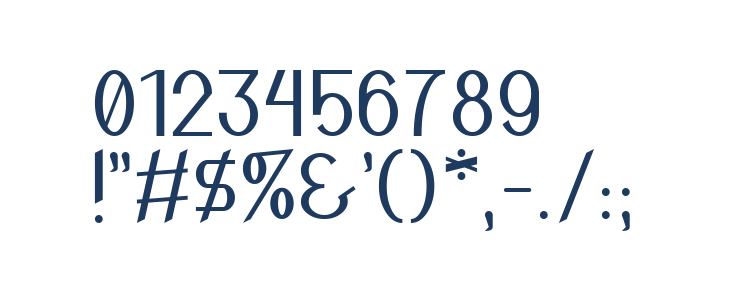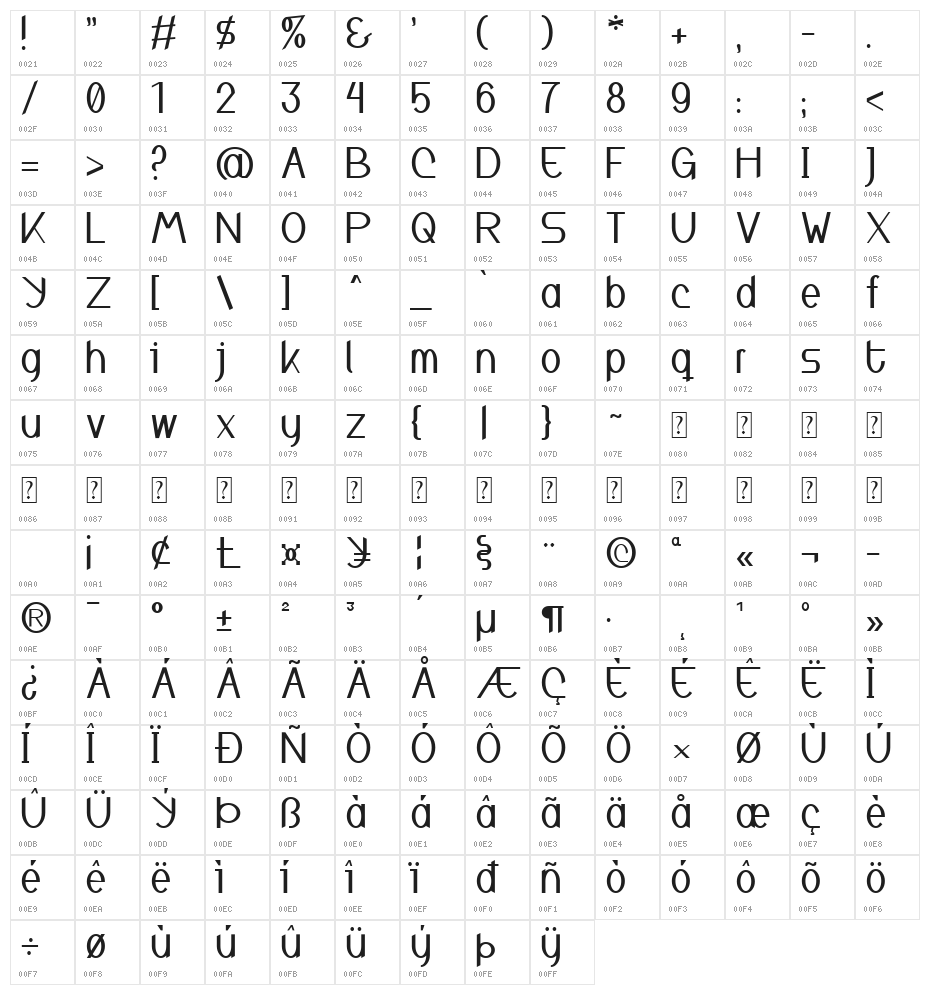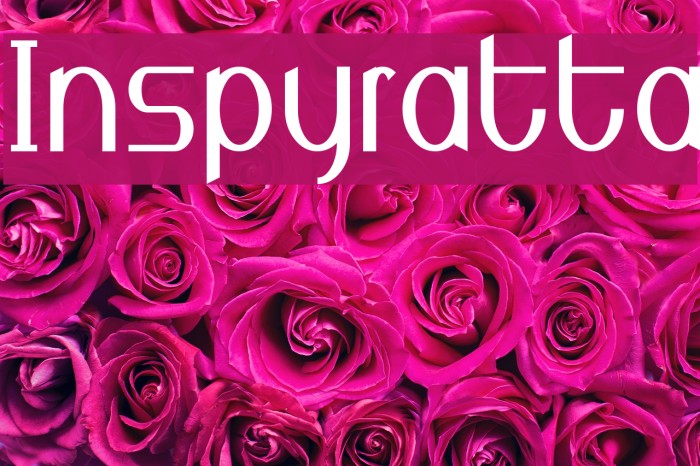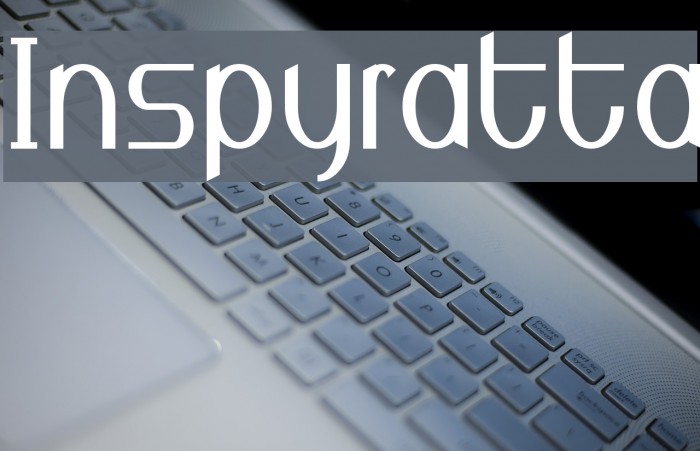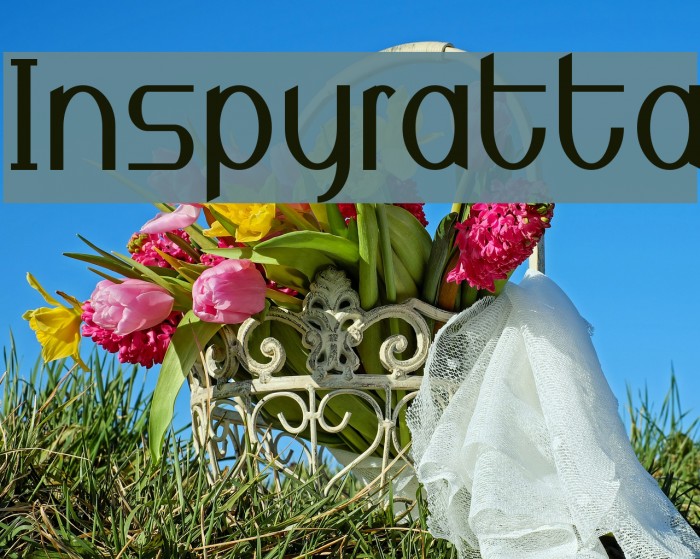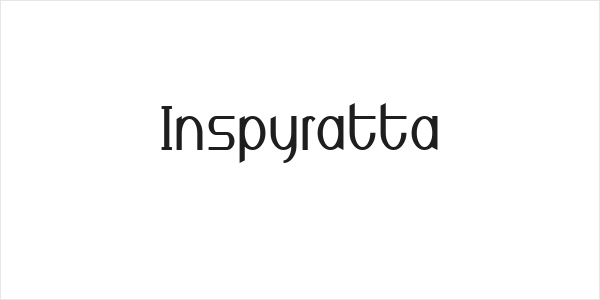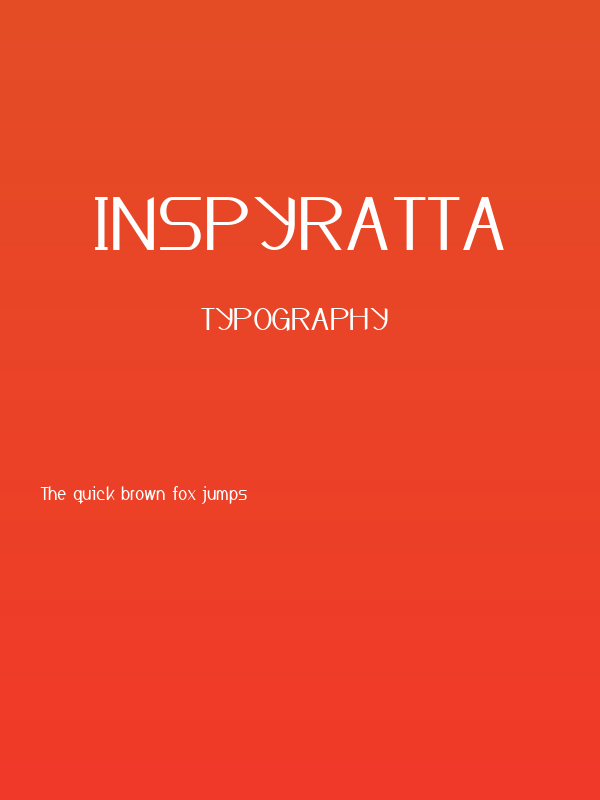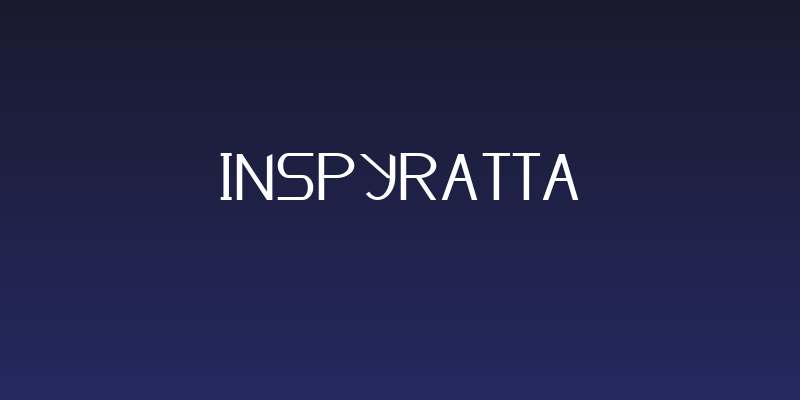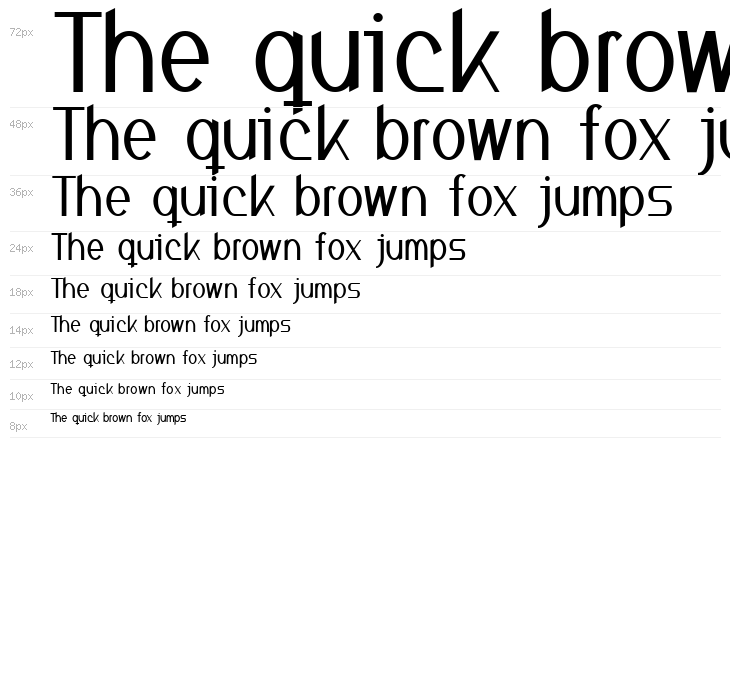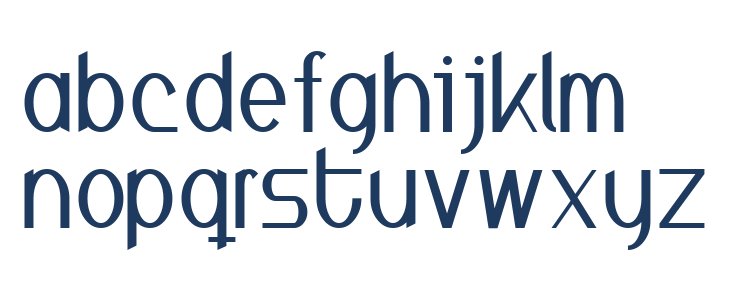
Inspyratta Font
Inspyratta Description
This font features a modern and geometric design with a unique blend of sharp angles and smooth curves. The uppercase letters are bold and striking, with distinctive shapes that create a futuristic feel. The lowercase letters maintain a consistent style, offering a harmonious balance between readability and artistic flair. Numbers are designed with a similar aesthetic, ensuring uniformity across all characters. Special characters are crafted with attention to detail, complementing the overall design. This font is ideal for projects that require a contemporary and innovative look.
| Use Case | Headlines, Logos, Digital Media |
| Proposed Projects | Ideal for branding, advertising, digital media, and any project that requires a modern and innovative aesthetic. |